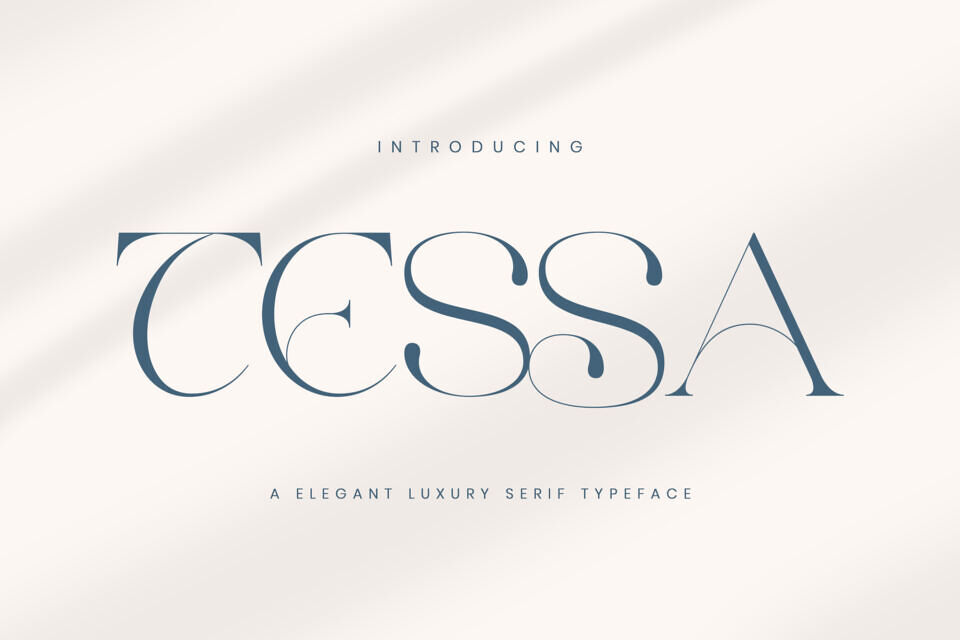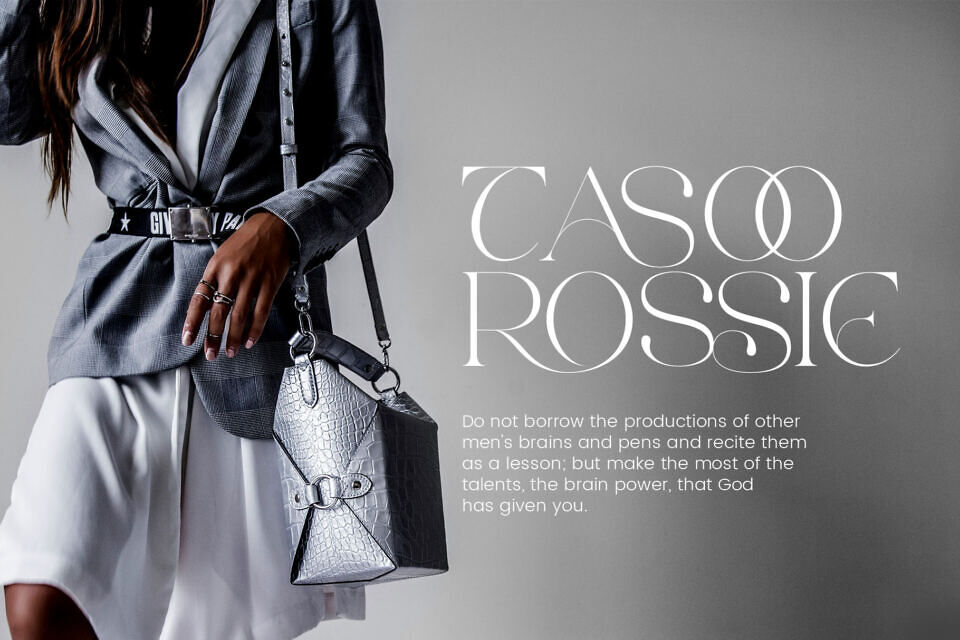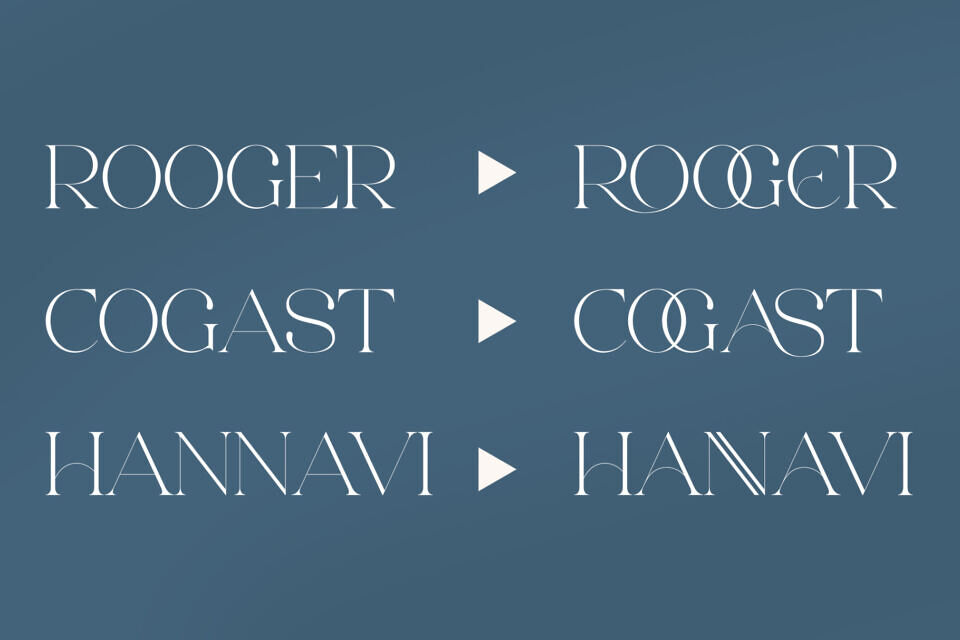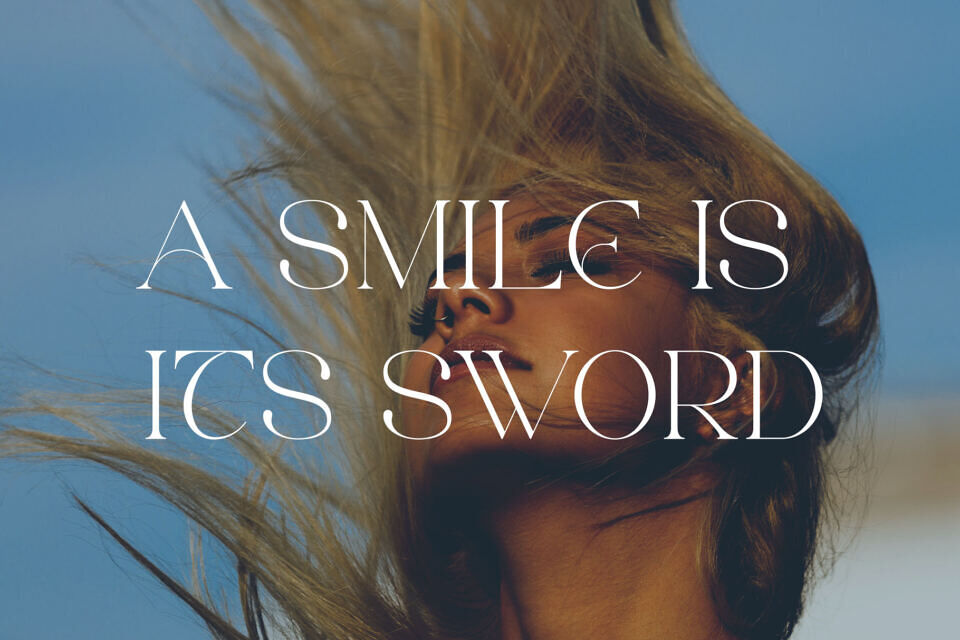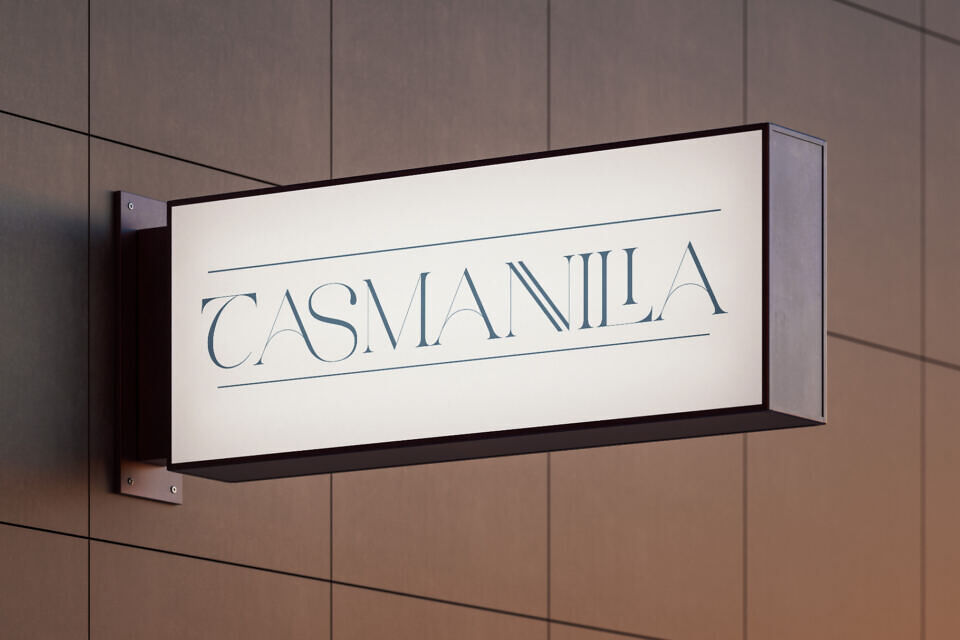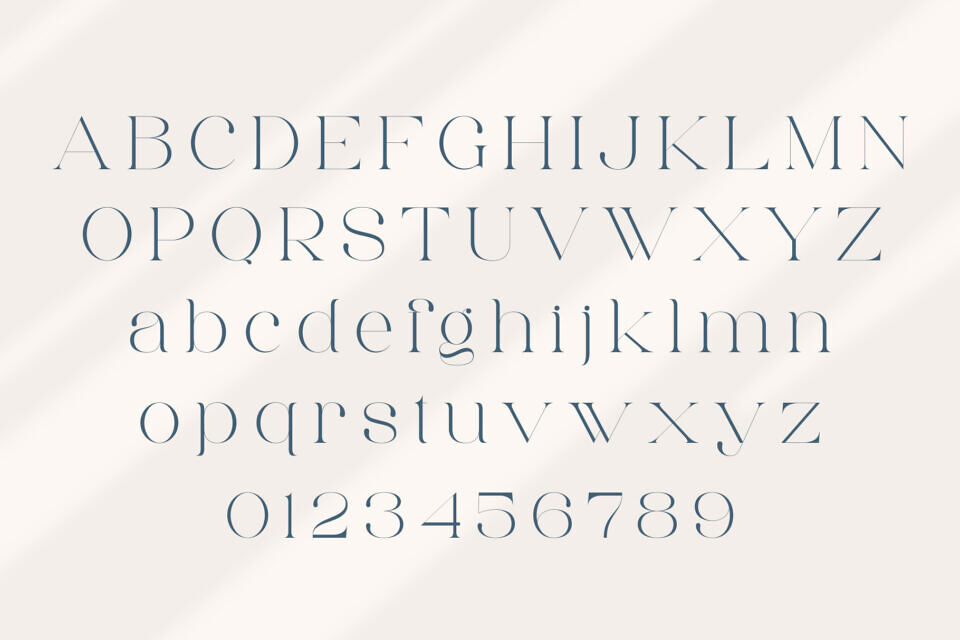
Tessa Font
Tessa is a sleek, modern serif font inspired by minimalist design. It’s ideal for creating templates, brochures, videos, and advertising materials, including logos and branding. Its simplicity makes it versatile and effective for various design purposes.